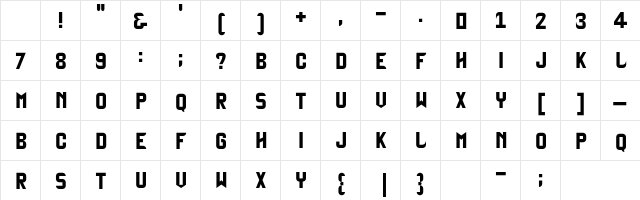
Complete Zinbox Bold glyph index. Displaying only characters natively supported by Zinbox Bold font.
Zinbox is a composed and adaptable typeface that performs quietly and consistently across a wide range of design contexts. Its bold stroke weight gives it real presence on the page.